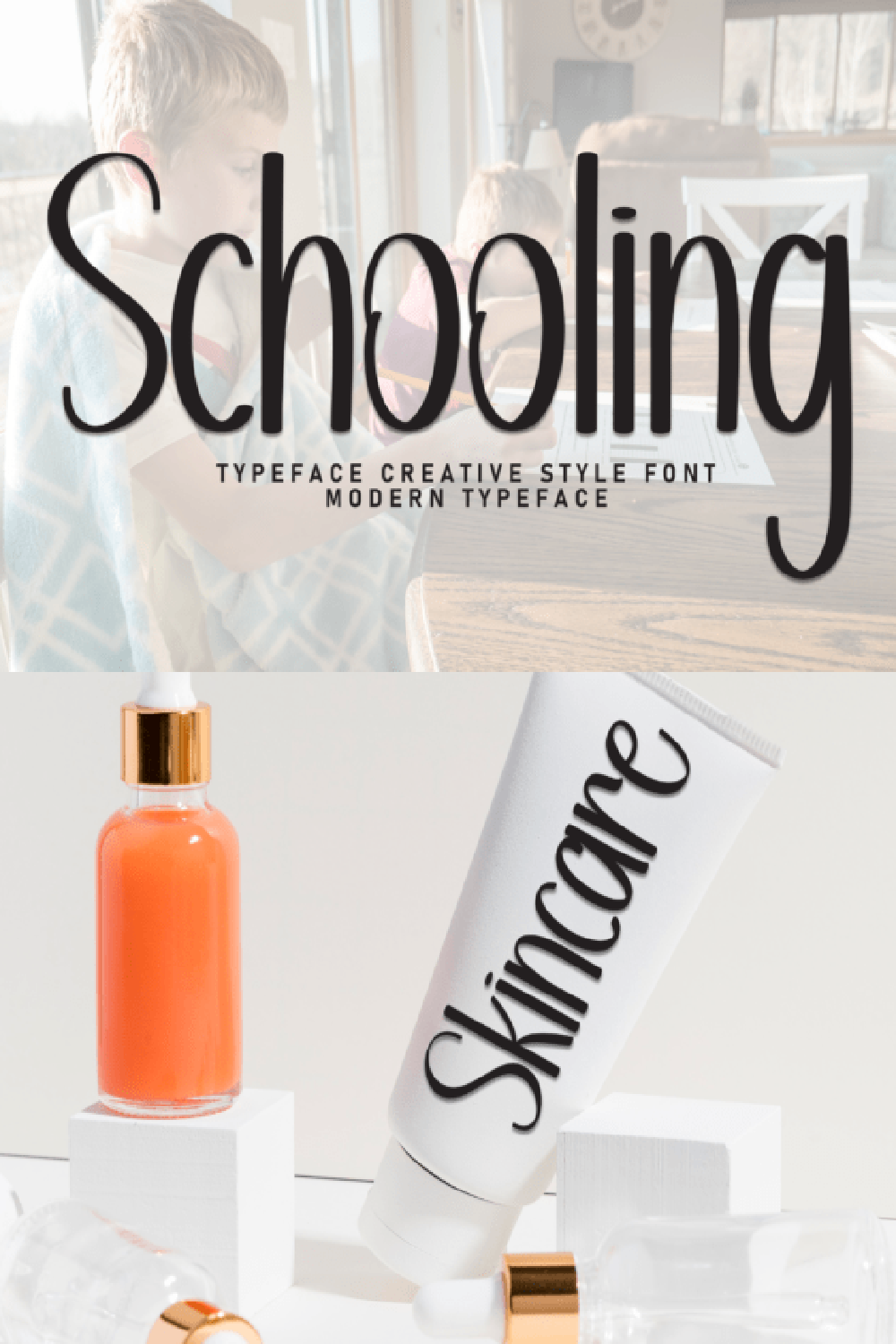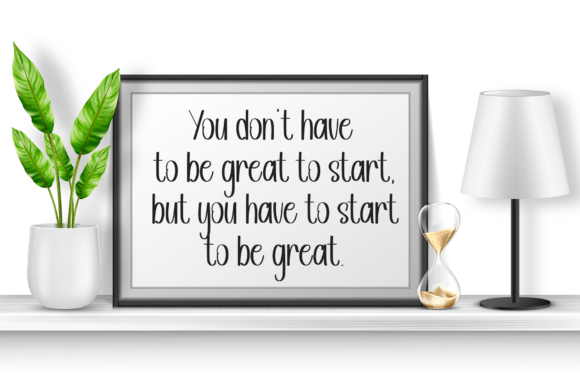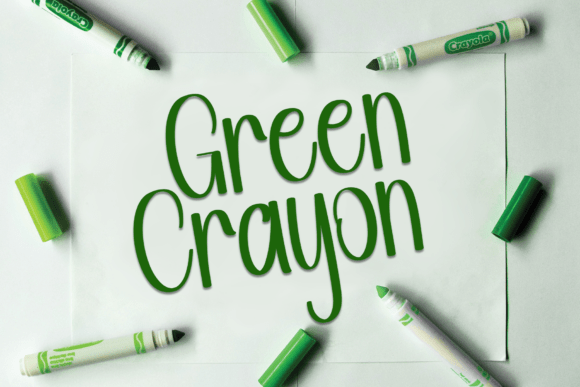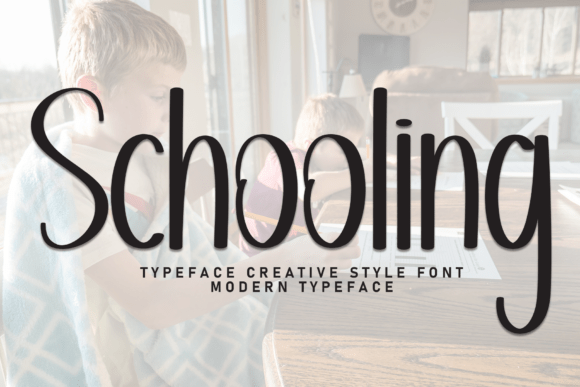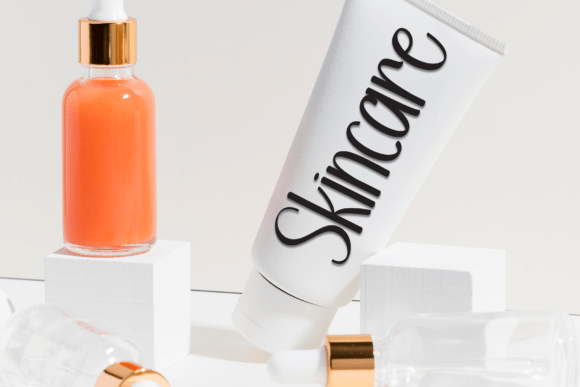
Schooling Font
About the Schooling Font
Make a bold statement with Schooling Font, a powerful and memorable font. Experience the warmth and charm of this delightful handwritten display font. With its sweet and friendly demeanor, this font showers your design with a playful feel, making it perfect for crafting adorable wedding invitations, creative cards, or any design seeking a spritz of fun. Experience the lighthearted whimsy that is this lovely font – it’s perfect for adding personality to your projects and making your designs truly stand out.